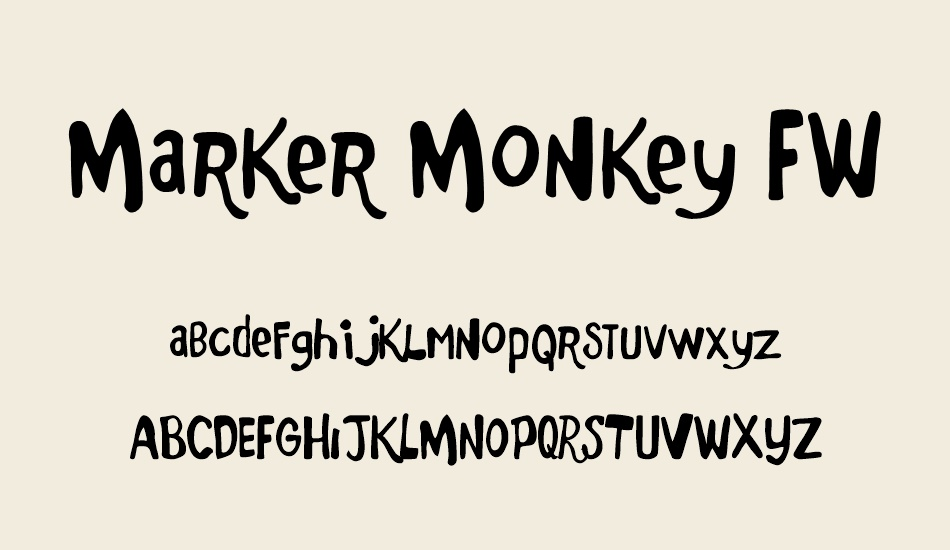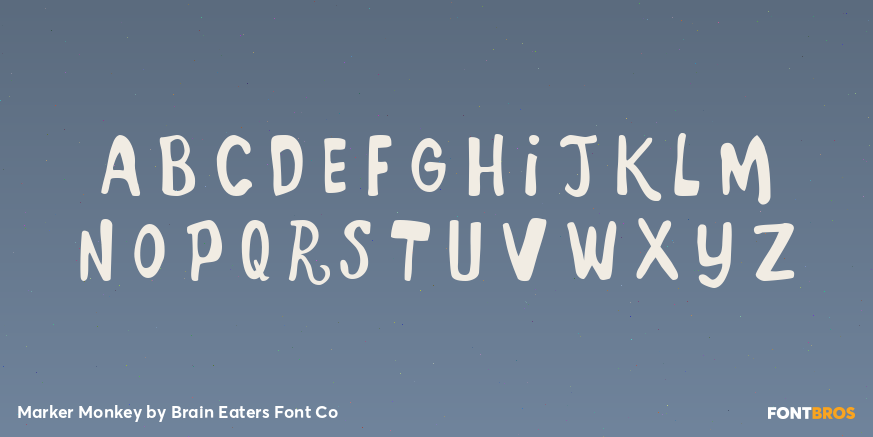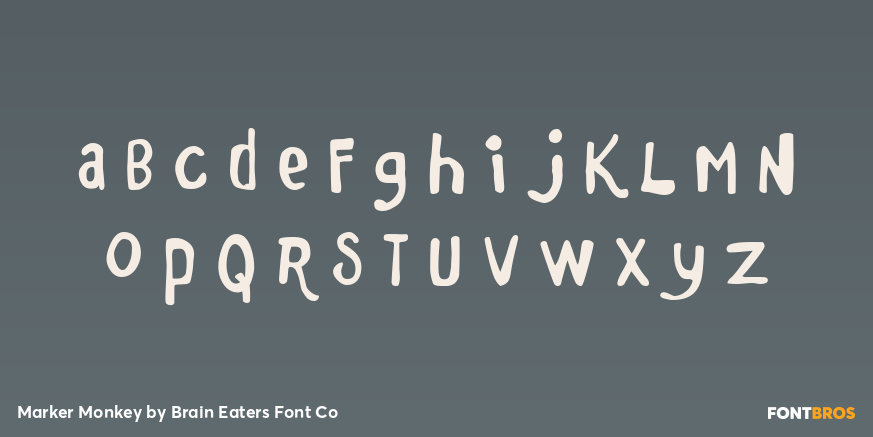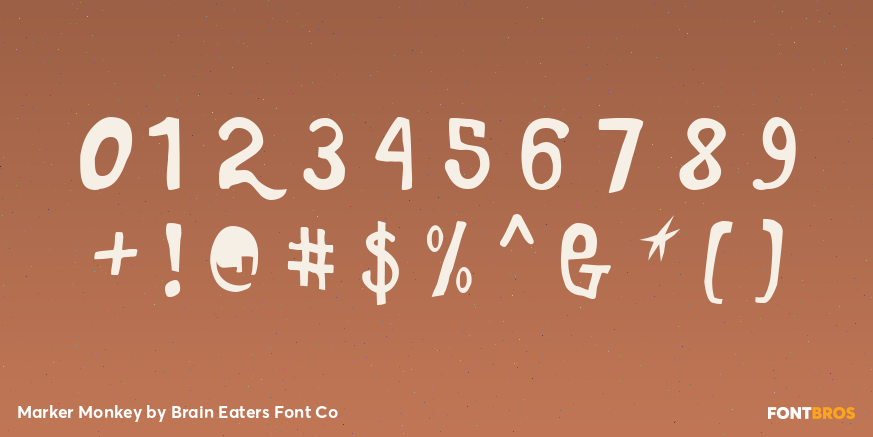
Marker Monkey
Font Family by Brain Eaters Font Co
Marker Monkey is a playful handwritten sans serif with a loose, casual feel and a fun, slightly wacky personality. Its marker-drawn look gives text an easygoing, human touch that feels informal, energetic, and full of character.